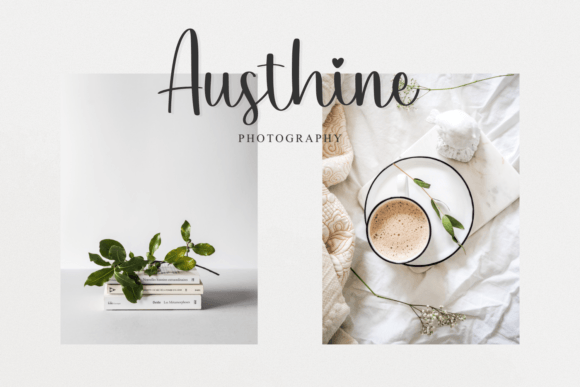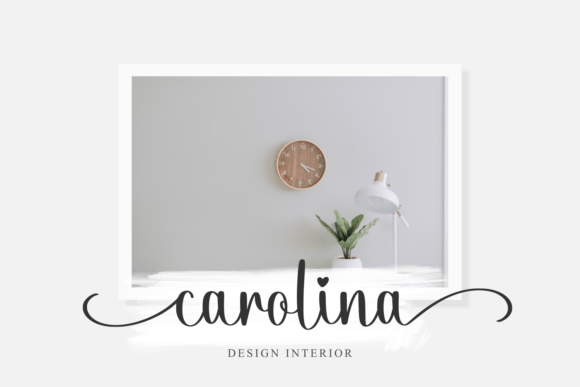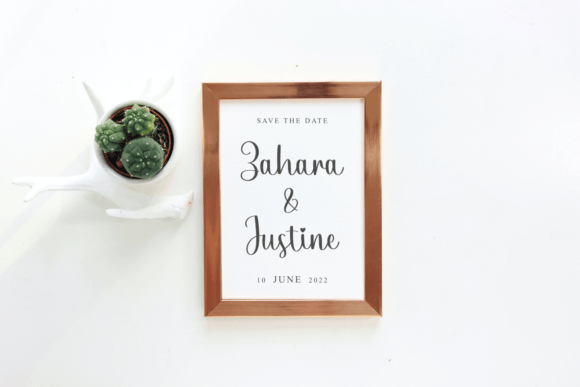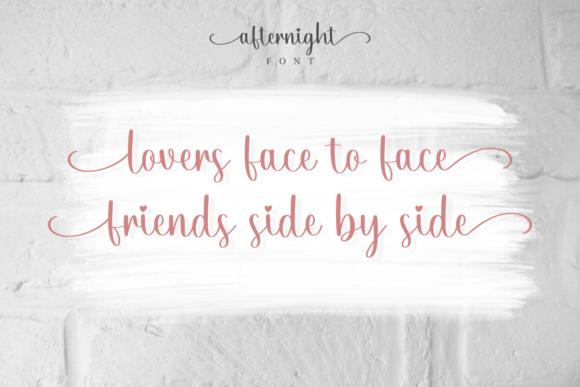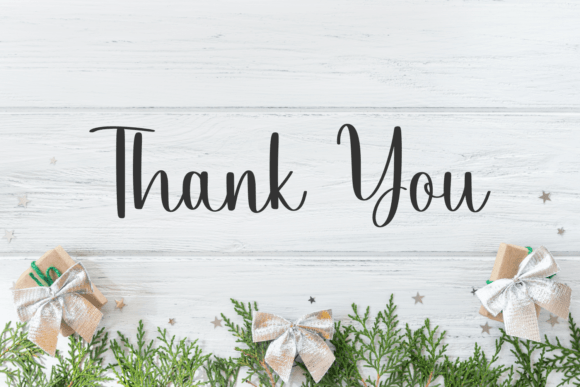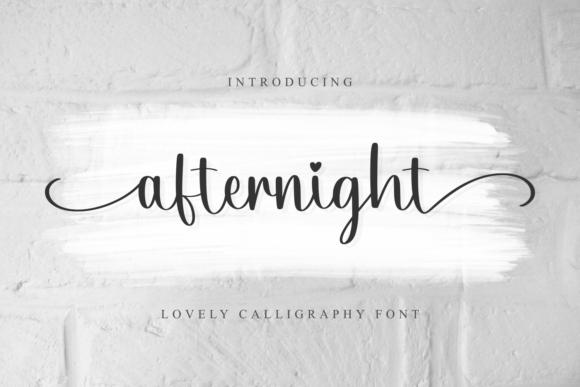
Introducing Afternight Font: Elevate Your Designs with Elegance
Are you a designer or crafter looking to add a touch of sophistication to your creations? Look no further than Afternight Font, an elegant handwritten font that is sure to take your designs to the next level. With its unique and stylish aesthetic, Afternight Font is the perfect addition to any project, from logos and labels to branding, invitations, websites, quotes, and more.
The Beauty of Afternight Font
Afternight Font is a beautifully crafted handwritten font that exudes elegance and refinement. Its flowing lines and delicate curves make it perfect for designs that require a touch of sophistication and luxury. Whether you’re creating a logo for a high-end brand or designing an invitation for a special occasion, Afternight Font is sure to impress.
One of the best things about Afternight Font is its versatility. It can be used in a wide range of design applications, from digital to print. Whether you’re designing a website, creating a social media graphic, or crafting a handmade product, Afternight Font is the perfect choice. Its elegant aesthetic will add a touch of class to any design, making it stand out from the crowd.
Afternight Font is a must-have for designers and crafters who want to create beautiful and unique designs. Its elegant aesthetic makes it perfect for a wide range of projects, including:
- Websites and social media graphics
- Labels and packaging
- Quotes and posters
- Handmade products and crafts
Why Choose Afternight Font?
There are many reasons why Afternight Font is the perfect choice for designers and crafters. Here are just a few:
- Elegant aesthetic: Afternight Font has a unique and stylish aesthetic that will add a touch of sophistication to any design.
- Versatility: Afternight Font can be used in a wide range of design applications, from digital to print.
- High-quality: Afternight Font is a high-quality font that is designed to produce crisp and clear results.
Here are a few tips and tricks for getting the most out of Afternight Font:
- Experiment with different sizes and colors: Afternight Font looks great in a variety of sizes and colors. Experiment with different combinations to find the one that works best for your design.
- Pair with other fonts: Afternight Font pairs well with other fonts, such as sans-serif fonts or script fonts. Experiment with different pairings to find the one that works best for your design.
- Use in combination with images: Afternight Font looks great in combination with images. Use it to add text to your images, or to create a design that combines text and image.